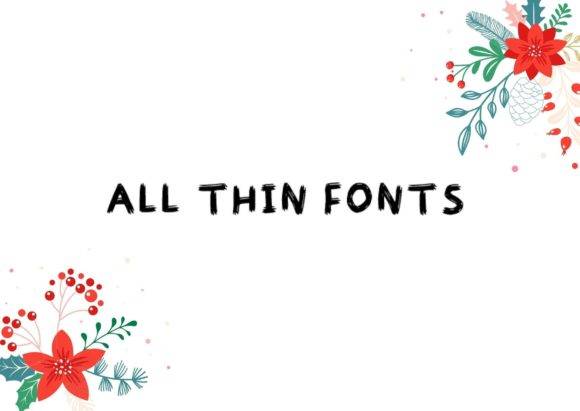
All Thin Fonts Font
All thin fonts is a creative and playful display font. No matter the topic, this font will be an incredible asset to your fonts library, as it has the potential to elevate any creation!